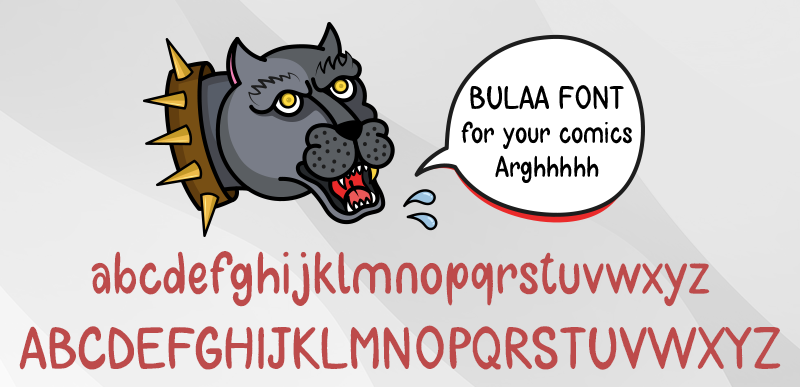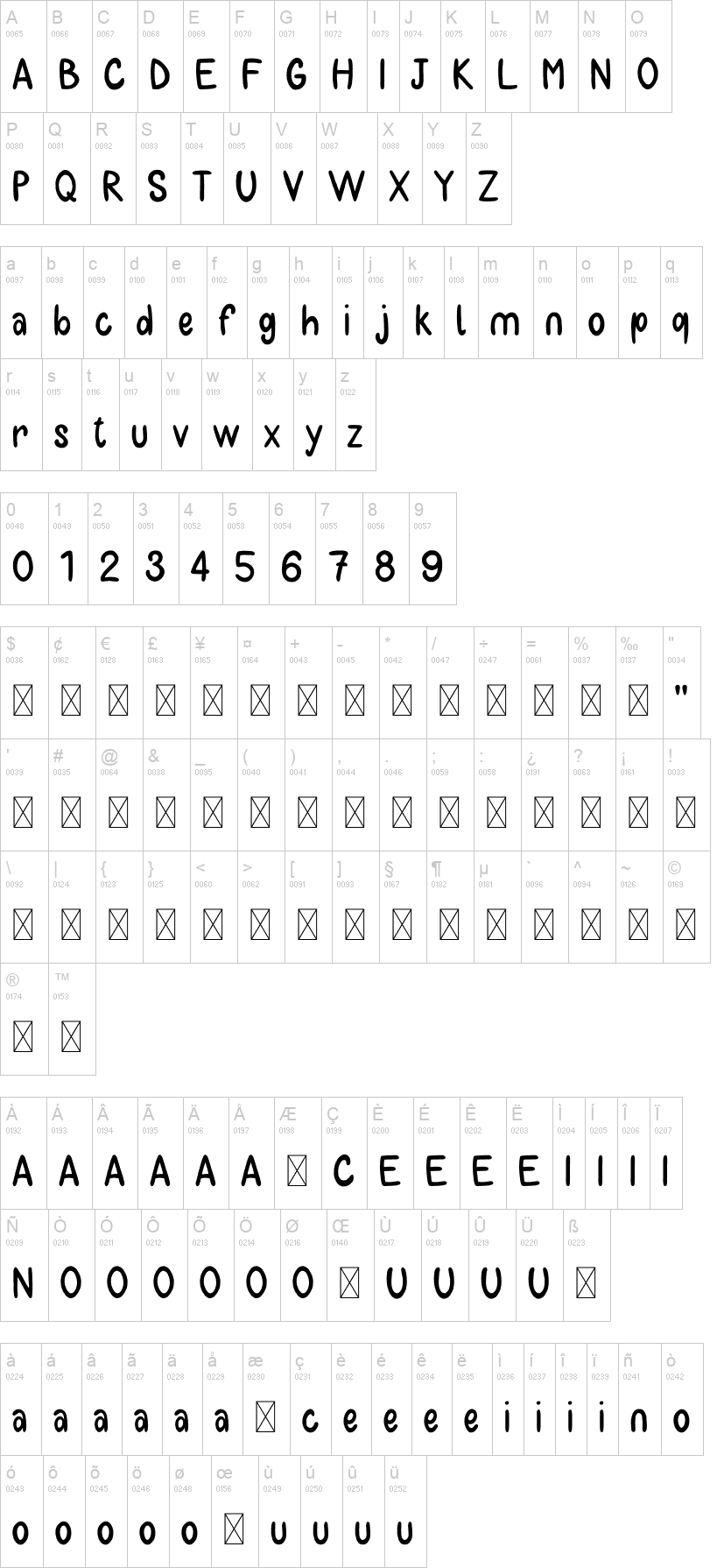
Note of the authorA good font for your comics!
The font is entirely hand-drawn letter by letter. Randomly there are letters with different weight for a dynamic and original look. Especially for comics, cartoons and posters.